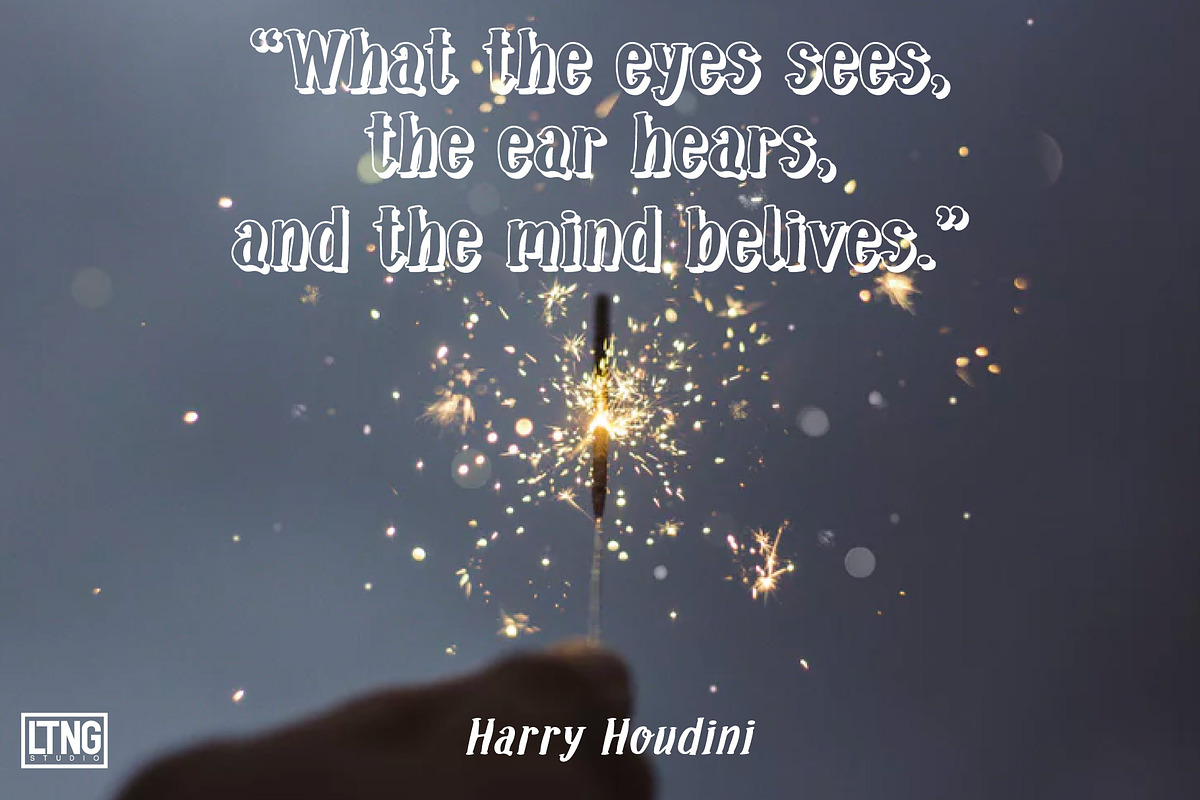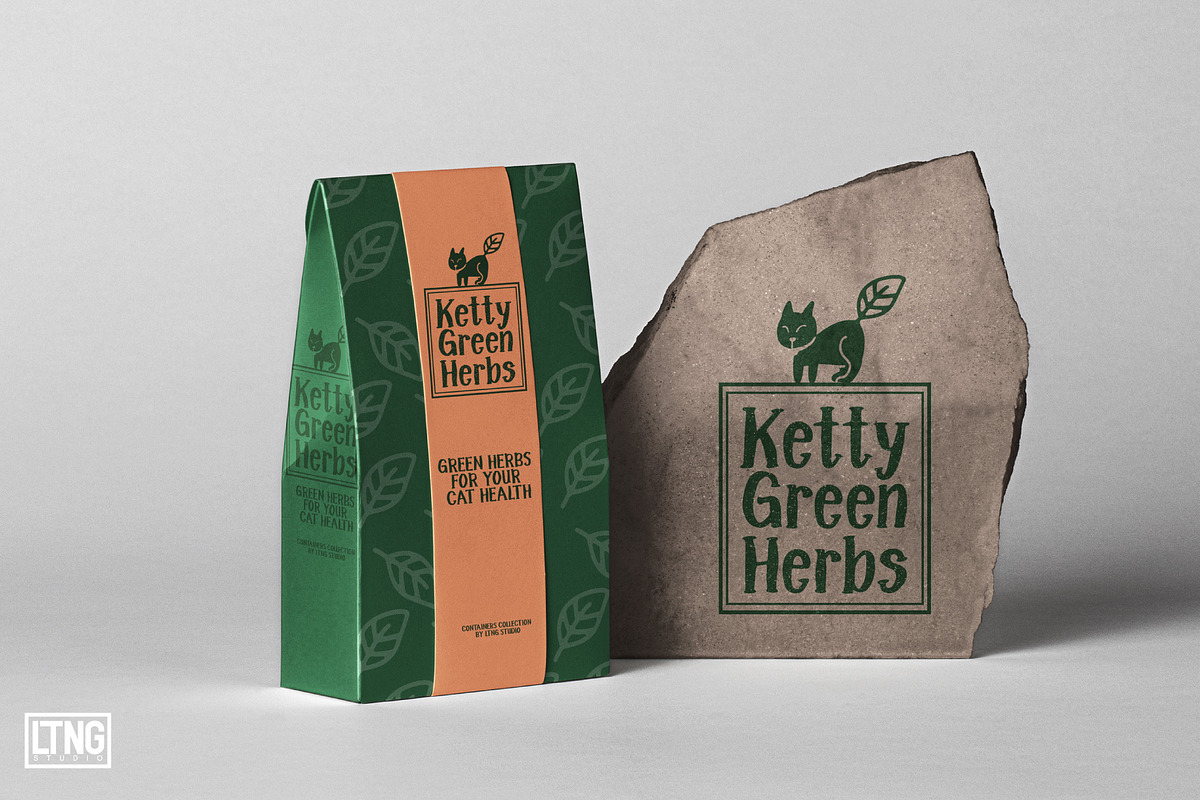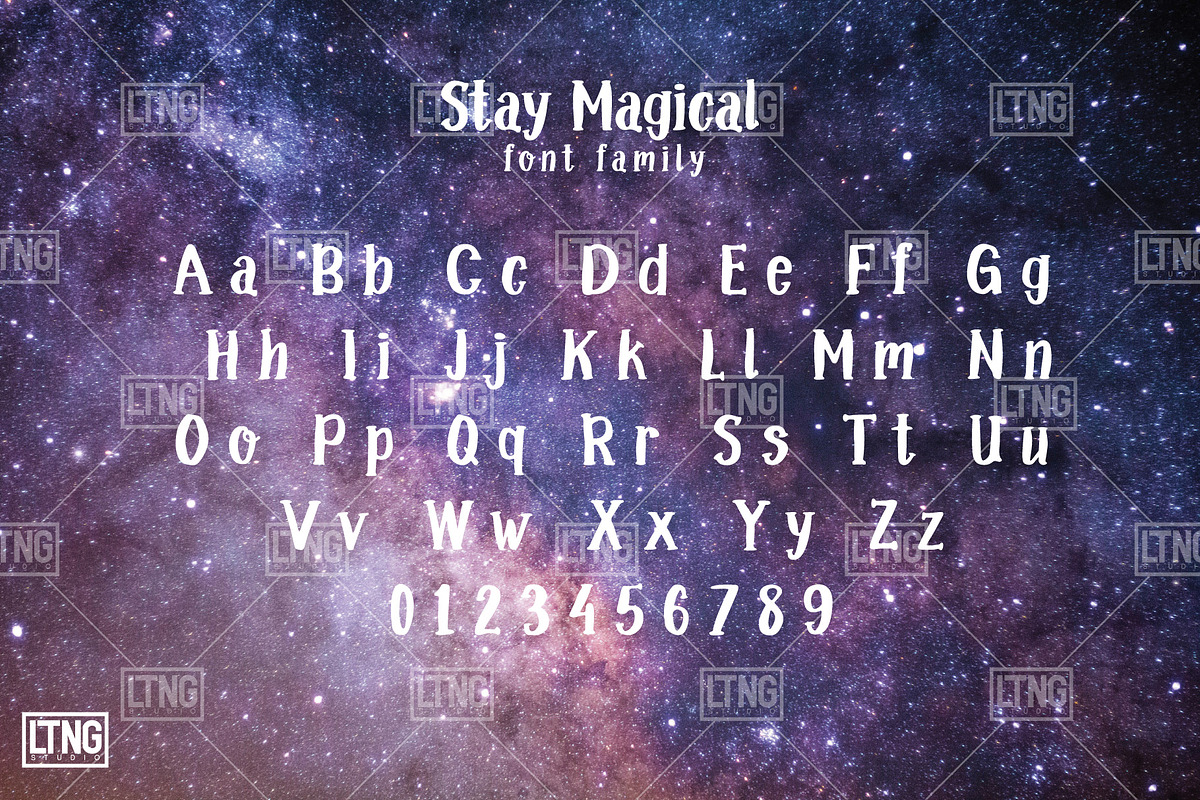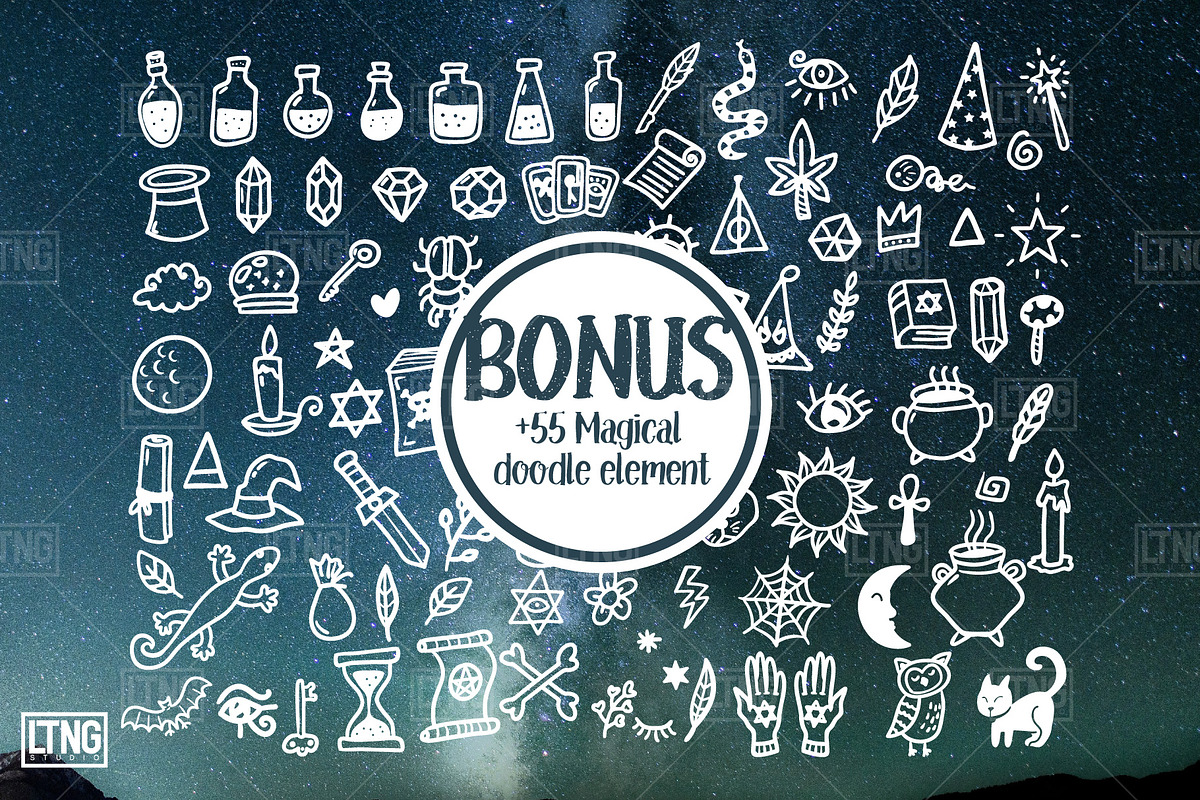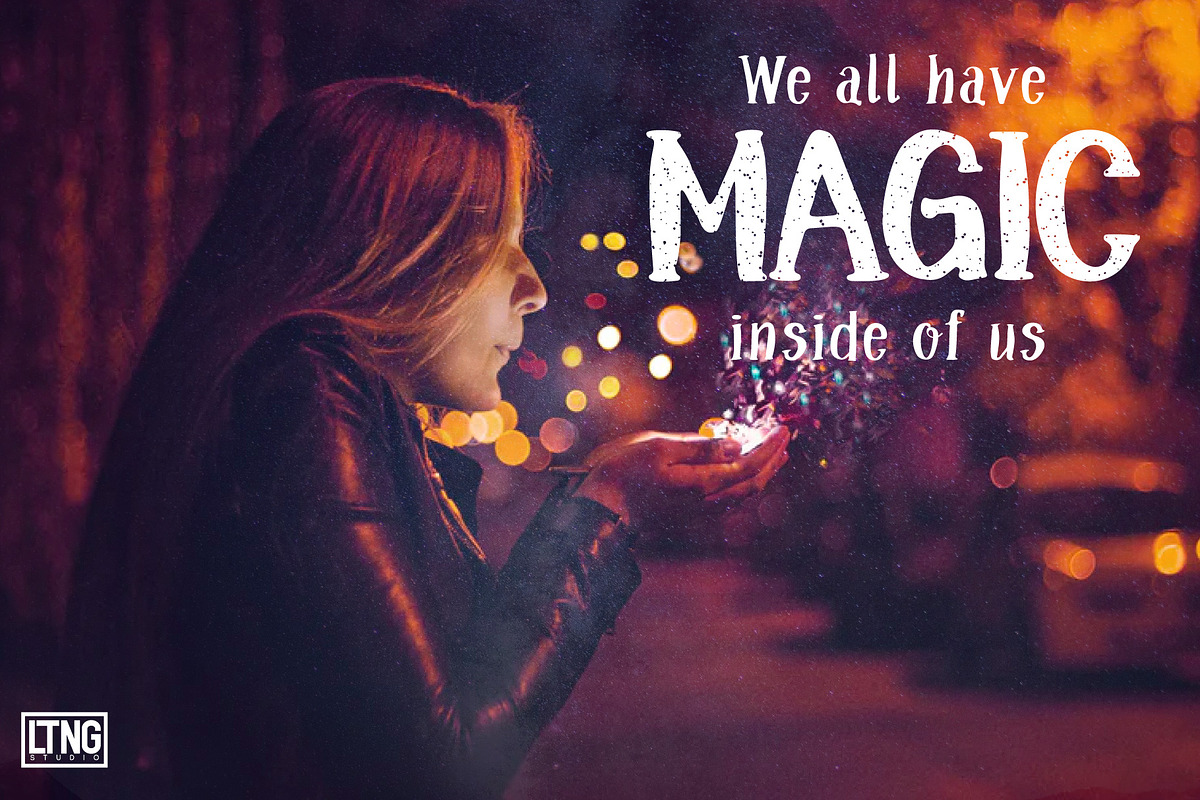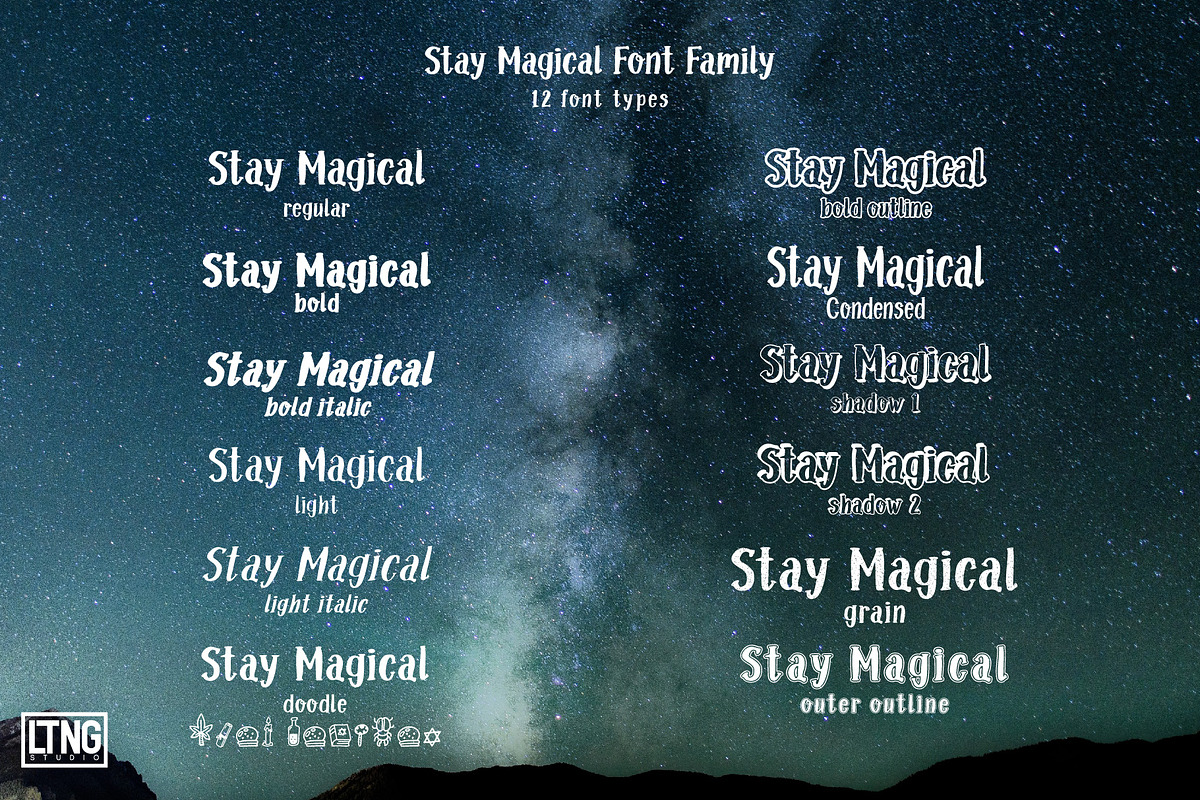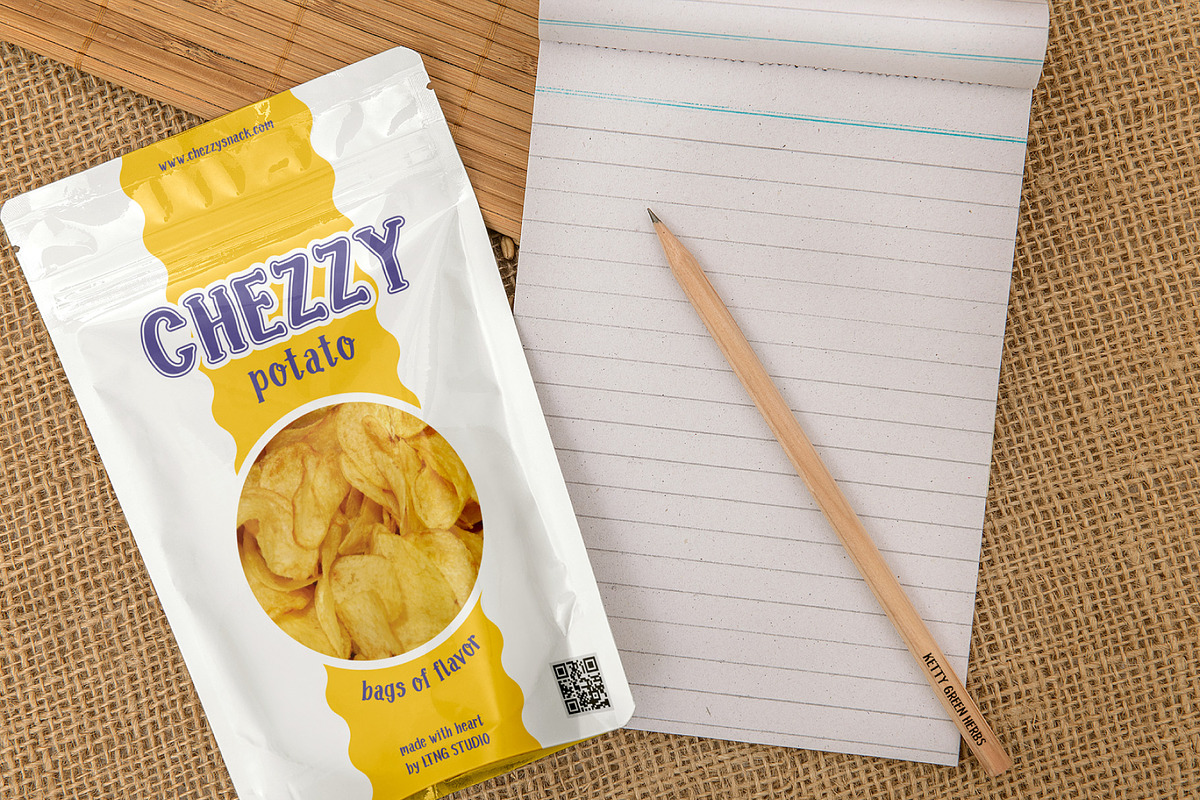
Stay Magical Font Family
Stay Magical Font Family Introducing Stay Magical Font Family a perfectly magical font family with bonus magical doodle element set. More then 12 fonts family will allow you to make tons of gorgeous typographic design such as DIY projects, greeting cards, labels, quotes, posters, wall art, branding, packaging, websites, logo design, packaging design & photography overlays, signs, and so much more! To add to the creative idea of yours, you will get more then +55 magical doodle elements. See the preview above to get some inspiration on how can you use this font for your projects.
Why Stay Magical Font Family is worth a look
Stay Magical Font Family by LTNG STUDIO fits naturally into Branding, posters, packaging, typography.